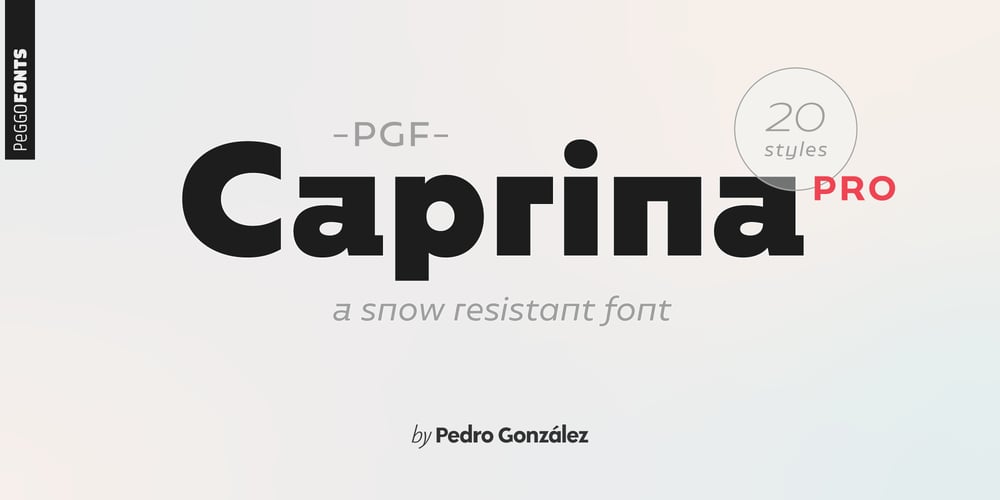
PGF Caprina Pro Font Family was designed by Pedro Gonzalez Jorquera, PeGGO Fonts and published by PeGGO Fonts. PGF Caprina Pro contains 20 styles and family package options. “PGF Caprina Pro” is an audacious and rough geometric sans-serif font inspired by the wild and untamed personality of mountain goats (the word “caprina”‘ in Spanish is related to or resembling ‘goats’)—amazing animals which can skilfully climb up slopes and withstand very cold temperatures. Was originally developed under the Latinotype team supervision and is now upgraded to this Pro version that comes in 20 font styles, with 739 glyphs each, supports now more than 200 Latin-based languages and includes a wider OpenType features range like: Stylistic Alternates ‘set 01’ for b, d, g, p, q, i, j, t, y, &, I, G, M Stylistic Alternates ‘set 02’ for d, g, j 4 Stylistic Alternate from ‘set 01’ to ‘set 04’ for Enclosed Numbers (circles and squares) Stylistic Alternate ‘set 05’ for curved 3 and ‘Zero with dot inside’ Contextual alternates automatically turns ‘zero’ into a ‘slashed zero’ in alphanumeric contexts Contextual alternates automatically turns “Il” into a serif for improve its legibility Case Sensitive when “All Caps” is activated for ß, ¡, ¿, () [] {}, ‹› «», •(bullet), *(asterisk), -(hyphen) Standard Ligatures for fi, fj, fl Discretionary Ligatures for tt, tr, www, LL, TT Lining Numbers Old Style Numbers Tabular Lining Tabular Old Style Numbers Slashed zero on every number figures Numerators and Denominators from 0 to 9 for any Fraction expression Superiors and Inferiors from 0 to 9 for any scientific notation Ordinal forms for ‘a’ and ‘o’ Localized language customization for German, Dutch, Polish, Catalan, Romanian, Moldavian, Turkish, etc. Every OpenType option is also accessible via Character Map allowing users and designers to choose an alternate design for a particular character.“PGF Caprina Pro” is well-suited for high-impact action publishing and advertising as well related with adrenalynic and extreme sport design stuff.